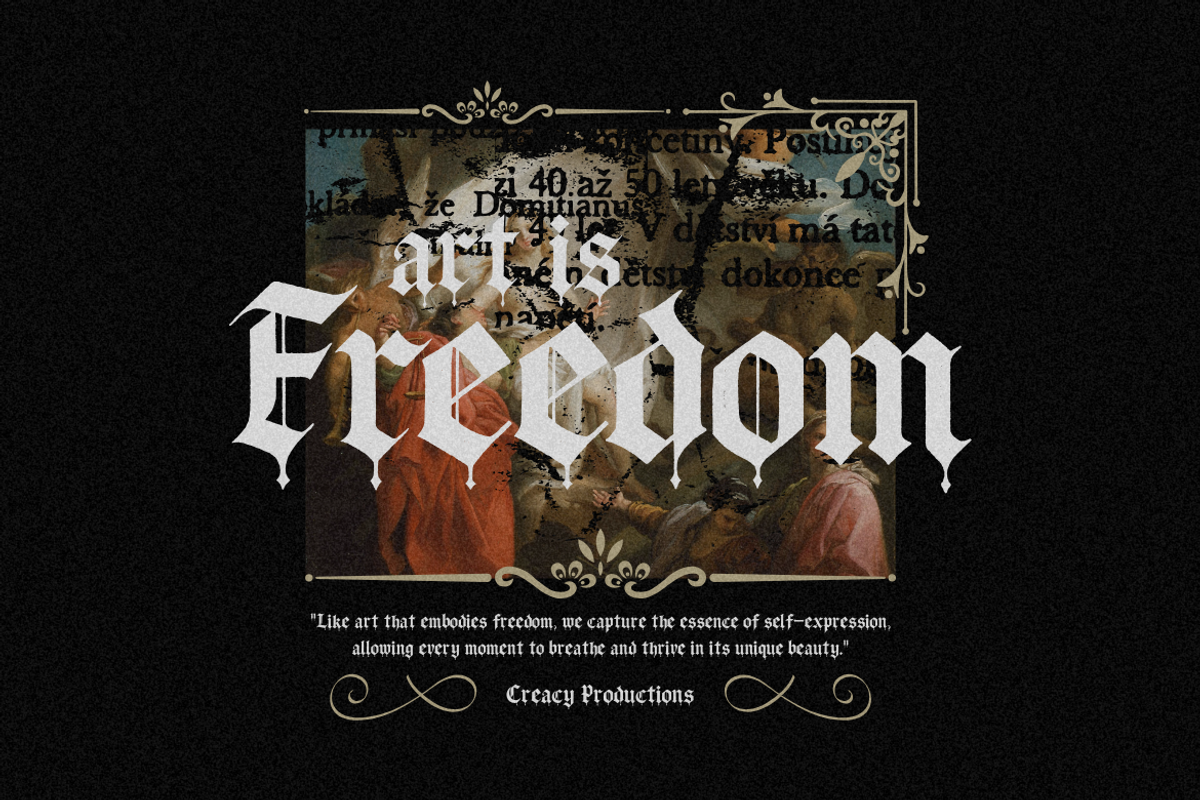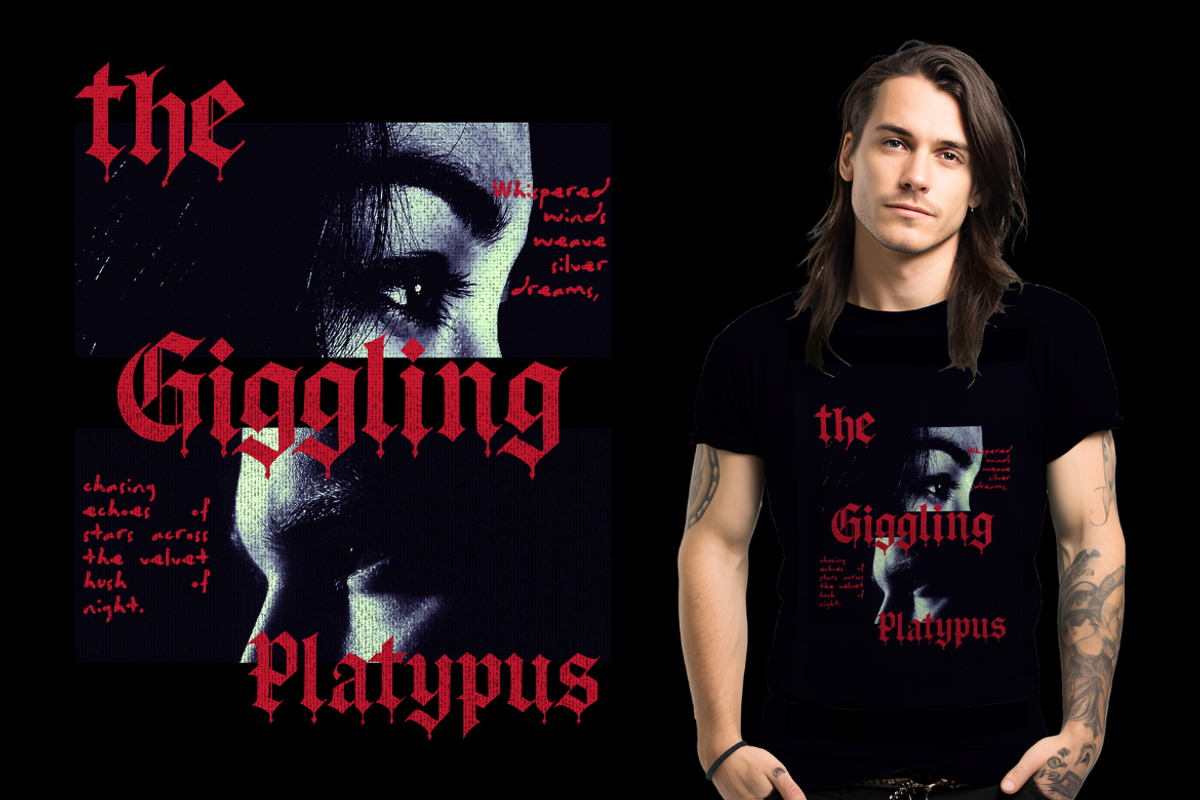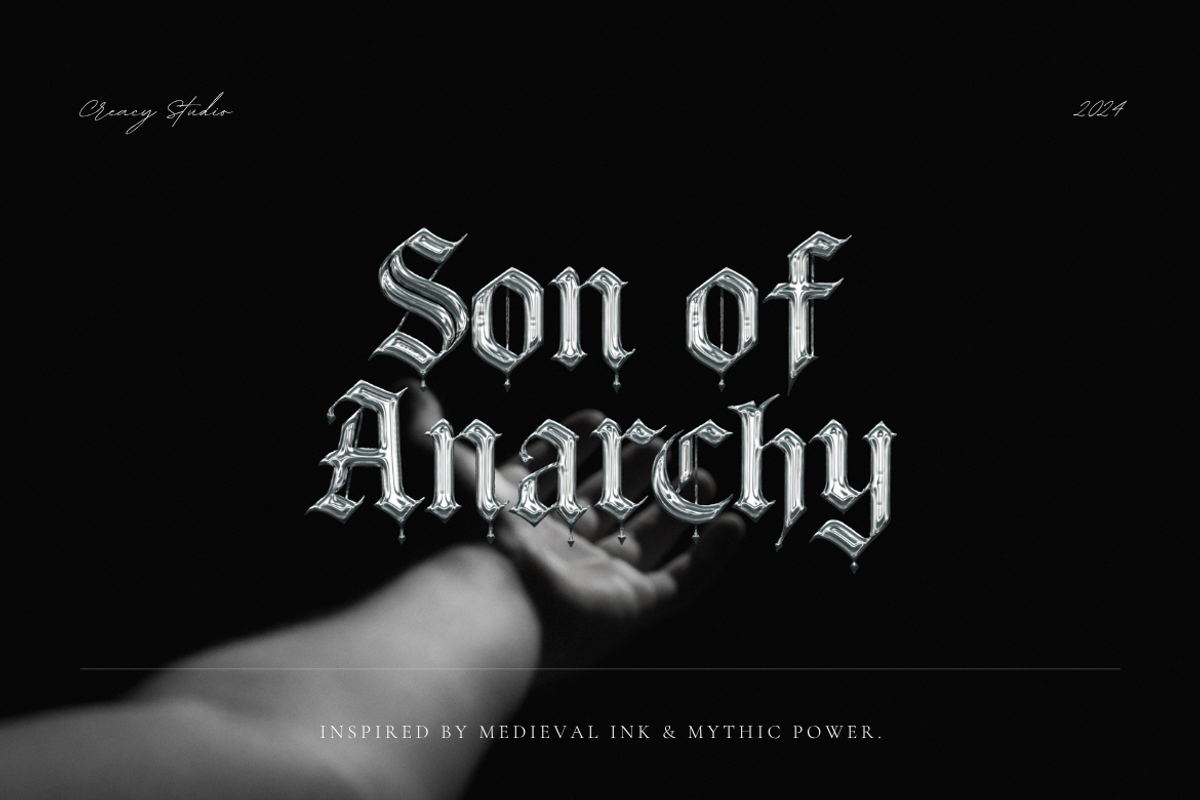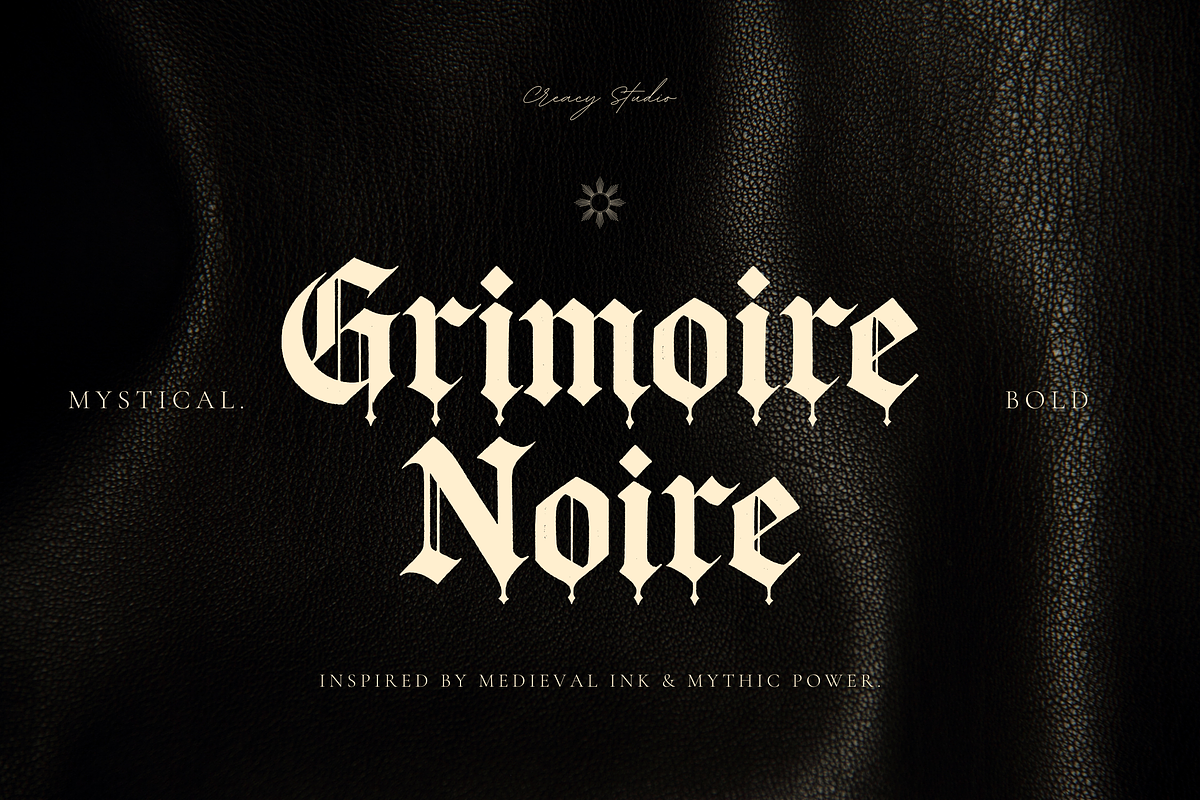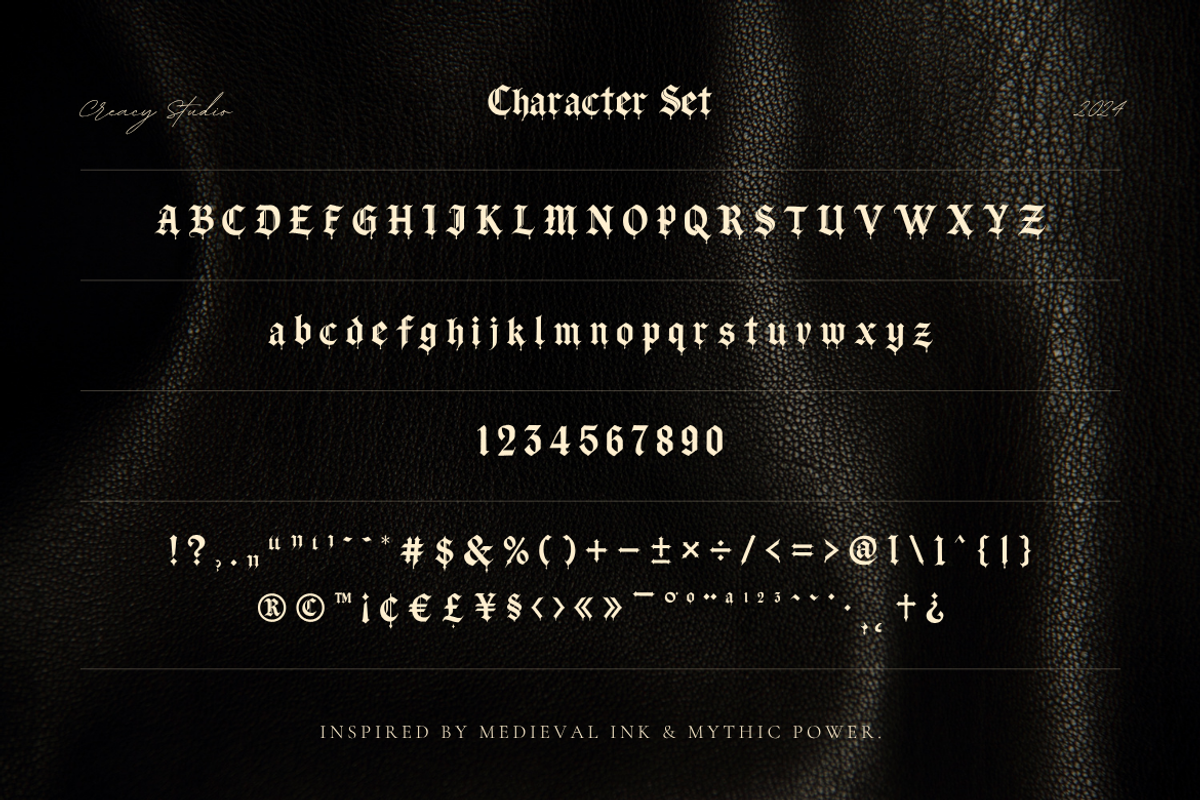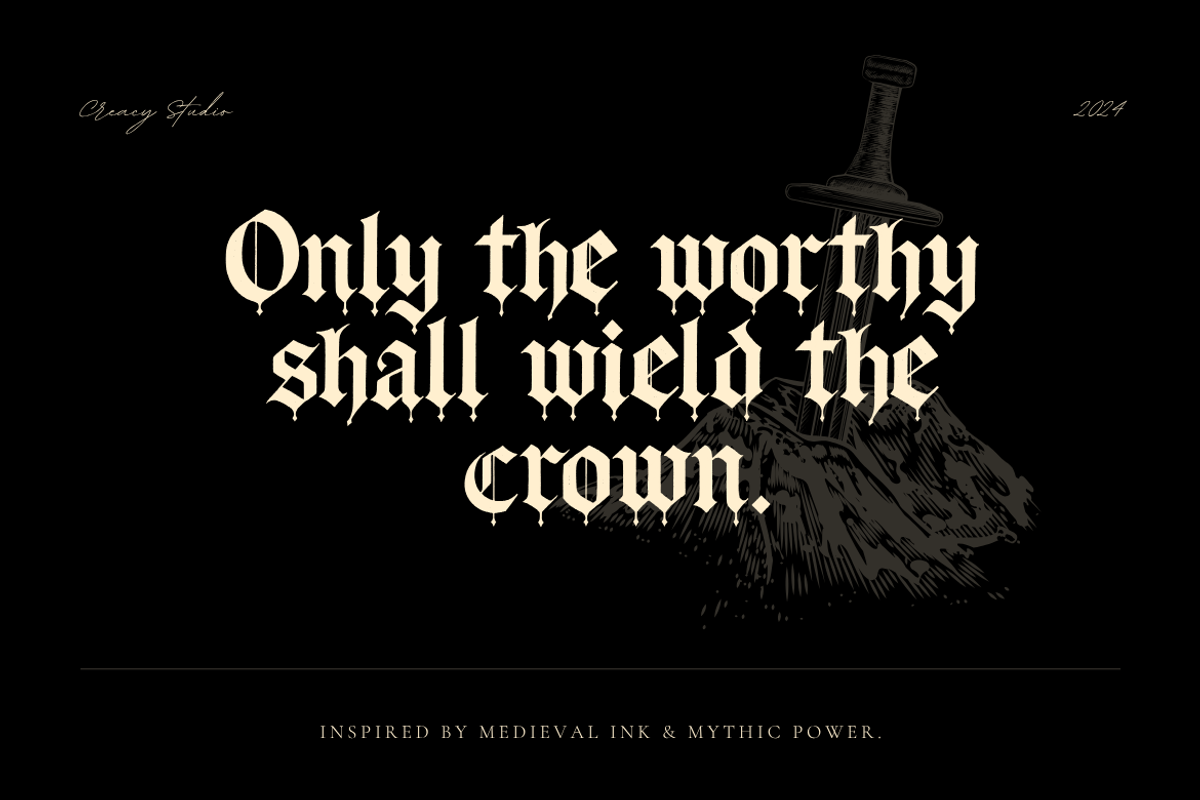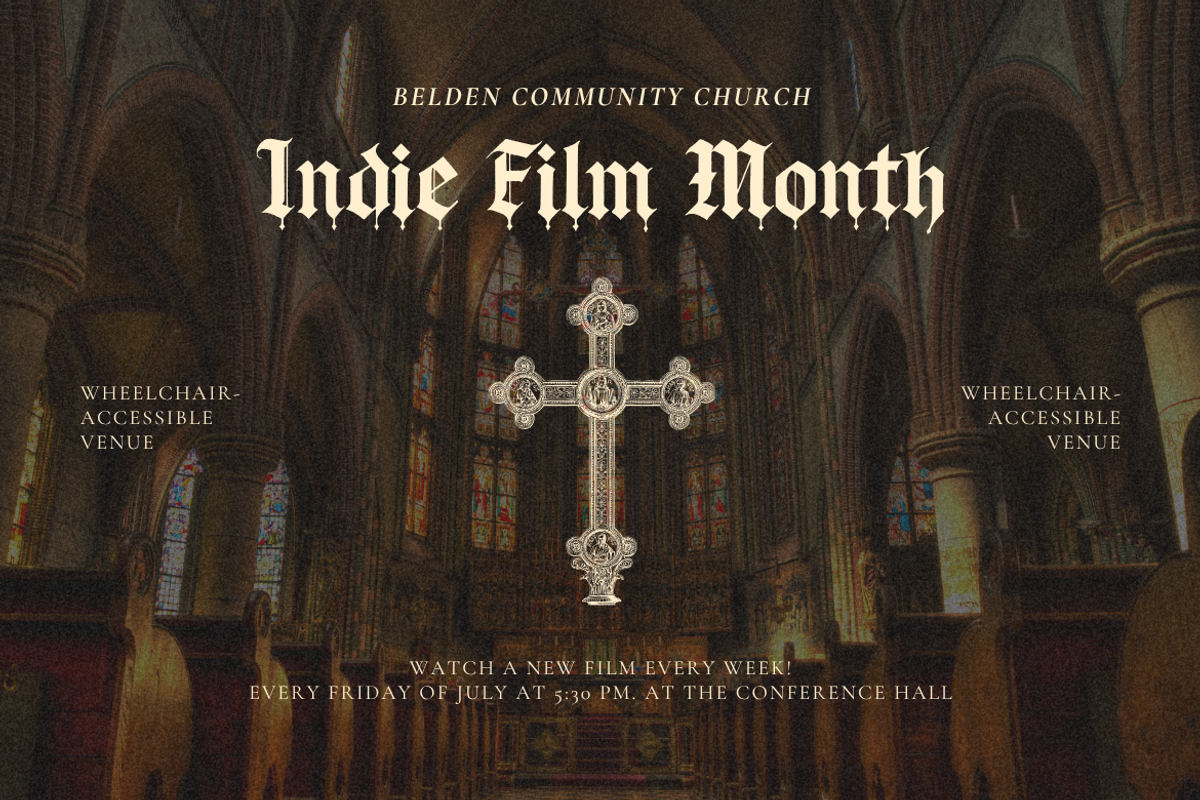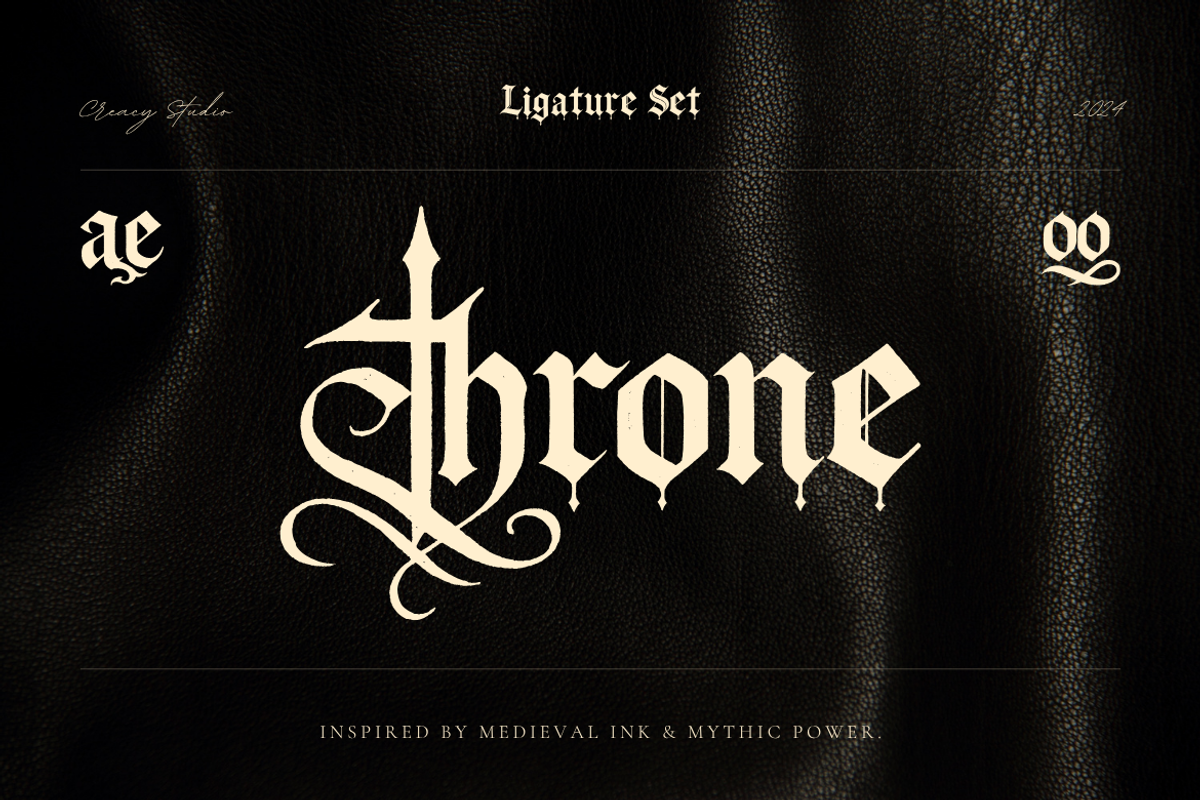
Grimoire Noire – Gothic Blackletter
✨ Grimoire Noire – Gothic Blackletter Typeface
Unleash the power of medieval elegance with Grimoire Noir, a bold and highly decorative blackletter typeface inspired by ancient manuscripts, cathedral carvings, and legendary myths. This font fuses the dramatic sharpness of Gothic strokes with modern typographic precision, making it perfect for dark fantasy projects, game titles, book covers, vintage branding, or heavy metal design.
Every character in Grimoire Noir is meticulously crafted with deep contrast, ornate terminals, and a mystical flair, evoking the presence of ancient scrolls, secret grimoires, and noble insignia. Whether you're designing for the throne room or the underworld, this typeface delivers unmatched visual power.
🔮 What’s Included:
- Uppercase A–Z
- Lowercase a–z
- Numerals 0–9
- Basic punctuation
- Extended Latin characters & accents
- Special ligatures (th, ae, oo)
🕯️ Perfect For:
- Fantasy movie or game titles
- Dark packaging & album covers
- Tattoo & occult design
- Book covers (historical, horror, mythology)
- Editorial & branding with medieval aesthetics
Step into the darkness. Rule your designs. Grimoire Noir awaits.